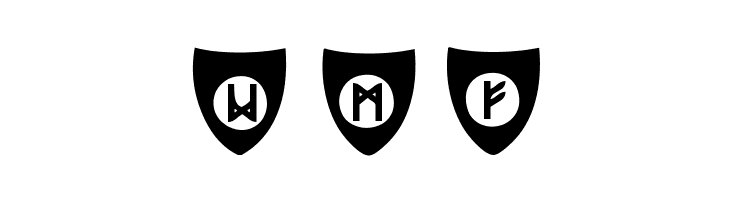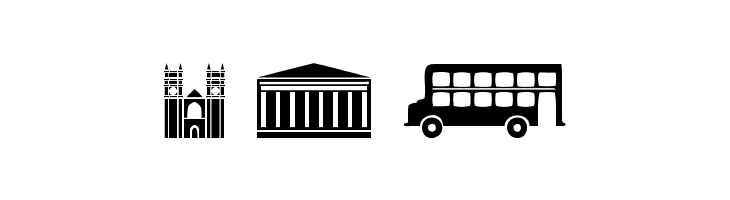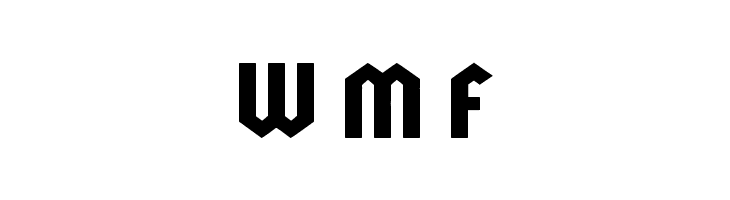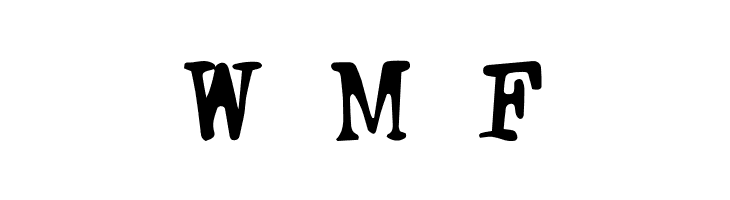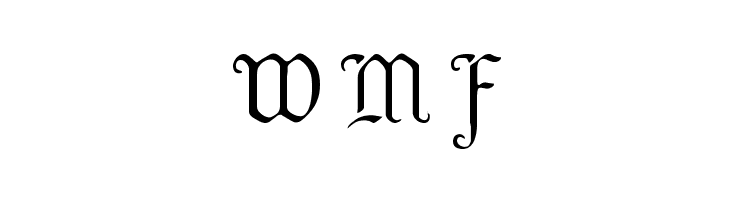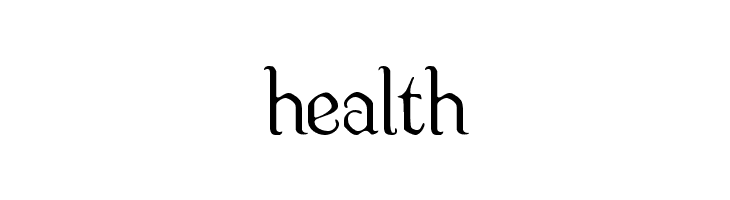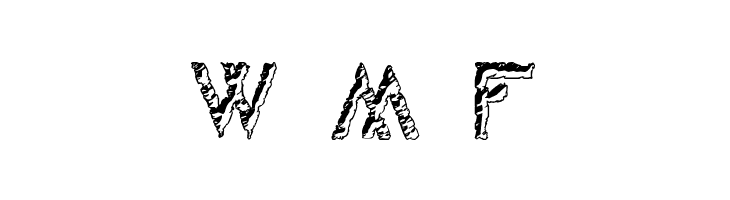
A bold, rune-inspired font with characters enclosed in shield shapes.
A bold, distressed font with a rugged, vintage appearance.
A bold collection of iconic English symbols and landmarks in silhouette form.
A bold, angular font inspired by ancient runic alphabets with a modern twist.
A decorative, medieval-inspired font with ornate and intricate letterforms.
A rugged, carved font with a primitive, ancient rune-like appearance.
A bold, distressed font with a vintage, industrial style.
A bold, distressed font with a vintage, textured appearance.
A bold, distressed font with a vintage, rugged texture.